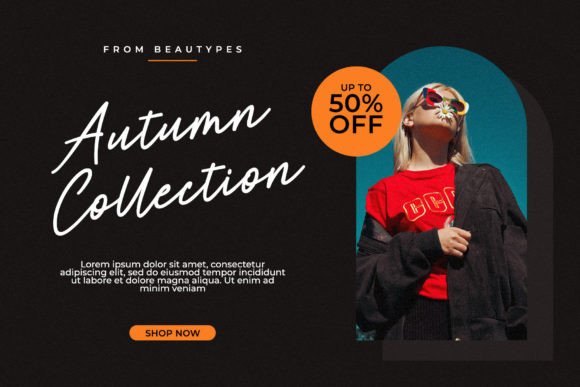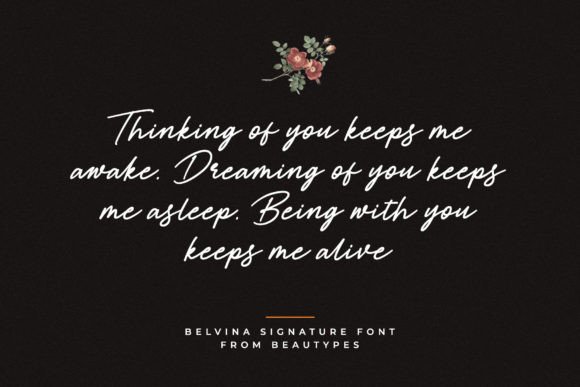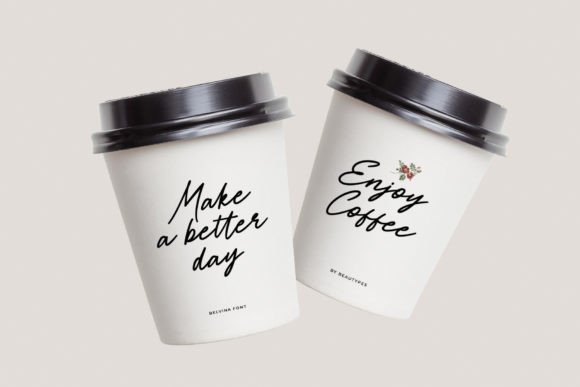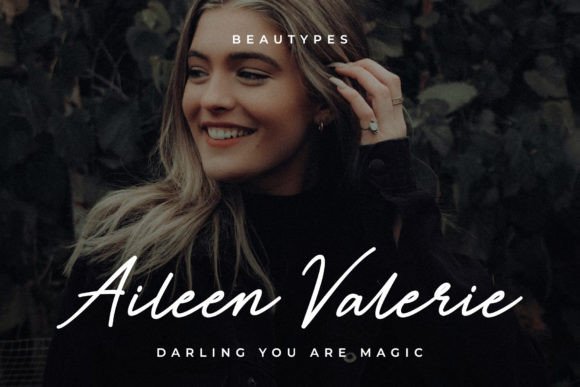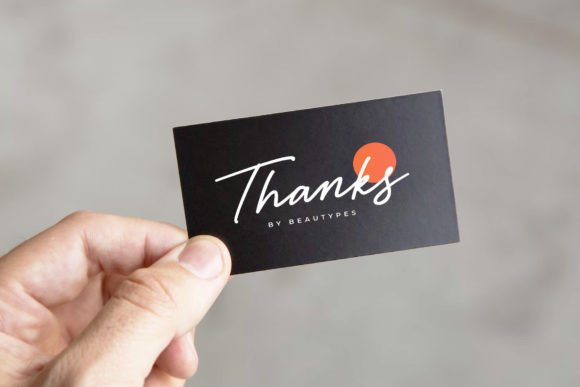
Unleash Your Creativity with the Perfect Handwritten Font
There’s something magical about discovering a new font that sparks your creativity and takes your project to the next level. It’s that moment when the perfect combination of style and personality comes together, and you know you’ve found your ideal match. For designers, finding the perfect font can be a game-changer, and that’s exactly what the Belvina Font offers.
This custom-crafted font is designed to add a touch of elegance and whimsy to any project, from branding and signature designs to wedding invitations and product packaging. With its versatility and range of styles, the Belvina Font is a valuable asset for designers looking to elevate their work and stand out from the crowd.
Belvina Font Key Features
- Unique Characteristics: The font features a unique blend of elegant and modern design elements, making it perfect for use in high-end branding and advertising.
Belvina Font Review
Overall, I’d say Belvina Font is a solid choice for designers looking for a clean and elegant script font. Here are some things that work well:
- ✨ Beautiful connections between letters: The flowing connections between the letters give Belvina a sophisticated feel that’s perfect for luxury brands.
- ✨ Versatility: Belvina comes in a range of weights, from light to bold, making it suitable for a variety of applications, from headlines to body text.
- ✨ Elegant feel: The subtle flair at the ends of the letters gives Belvina a unique and eye-catching look.
- ⚠️ Limited language support: Unfortunately, Belvina doesn’t support as many languages as some other fonts, which may limit its use in global campaigns.
- ⚠️ Not ideal for small text: While Belvina is beautiful at larger sizes, it can become difficult to read at smaller sizes due to its flowing connections.
Overall, I’d give Belvina a solid 4 out of 5 stars. While it’s not perfect, it’s a great choice for designers who want a elegant and sophisticated script font. With a little creative flexibility, you can work around its limitations and achieve some truly stunning results.
The Belvina Font is ideal for:
- Designing elegant and sophisticated logos.
- Creating professional-looking business cards and stationery.
- Adding a touch of elegance to wedding invitations and event materials.
Alternatives to Belvina Font
Great Vibes is a beautiful, elegant script font that is perfect for creating a sophisticated and luxurious feel. It’s ideal for use in logos, branding, and invitations. Great Vibes is similar to Belvina Font in its elegant and refined look, but it has a more classic and timeless feel.
Alex Brush is a handwritten script font that is great for adding a personal and creative touch to your designs. It’s perfect for use in social media graphics, advertising, and editorial design. Alex Brush is similar to Belvina Font in its flowing and cursive look, but it has a more relaxed and casual feel.
Carolyna Pro is a modern and elegant script font that is perfect for creating a sleek and sophisticated look. It’s ideal for use in logos, branding, and packaging design. Carolyna Pro is similar to Belvina Font in its refined and elegant look, but it has a more modern and edgy feel.
Q: Is the Belvina Font optimized for web use?
Yes, the Belvina Font is optimized for web use, with features such as subpixel rendering and font hinting to ensure smooth text rendering and crisp typography on high-resolution screens.